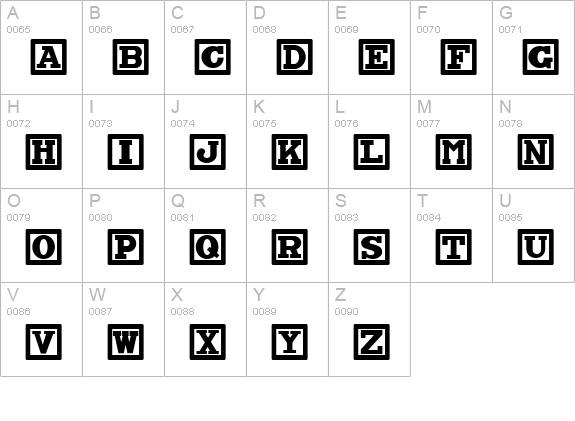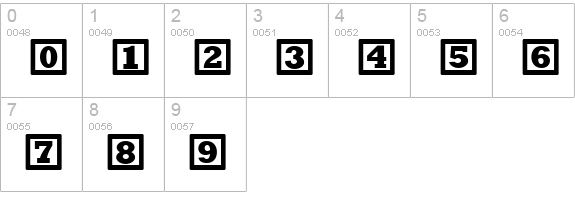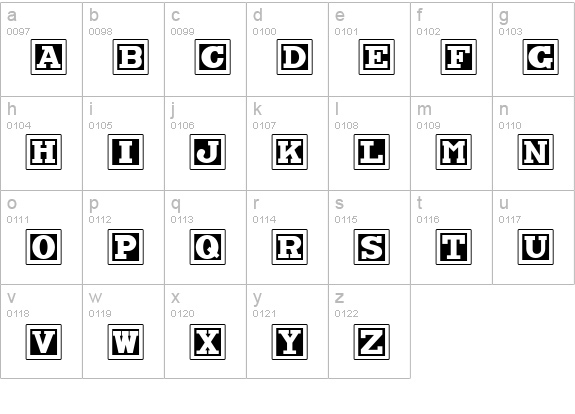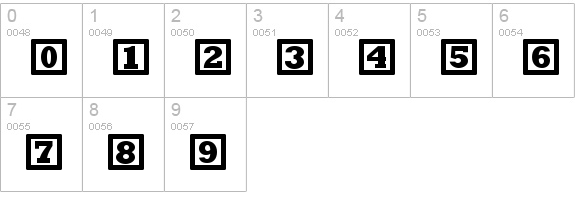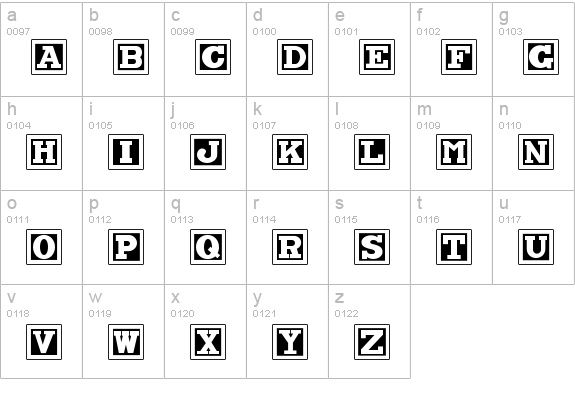
Chock A Block NF Font Details
Chock A Block NF is a bold and eye-catching font that exudes a sense of playfulness and creativity. With its thick, blocky letters and quirky design elements, this font is perfect for making a statement in your designs. Whether you're working on a poster, logo, or branding project, Chock A Block NF will surely grab attention and leave a lasting impression. The best part? Chock A Block NF is completely free to download at FontsMarket.com. This means you can add this unique font to your collection without having to spend a dime. So go ahead and unleash your creativity with Chock A Block NF - the possibilities are endless!